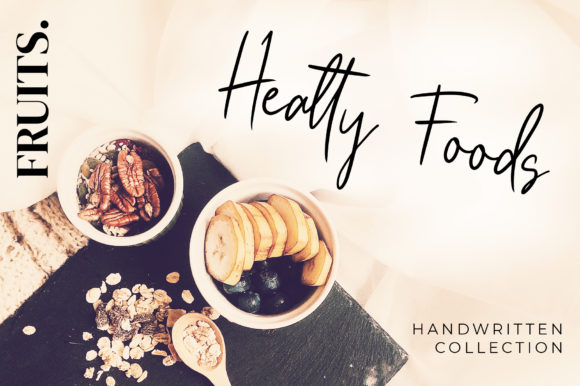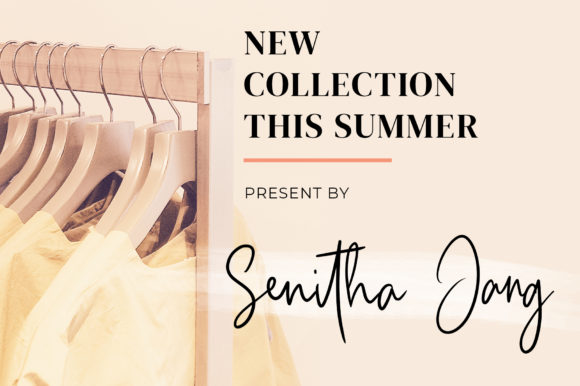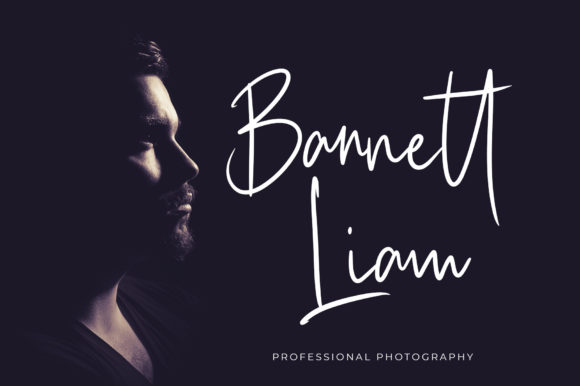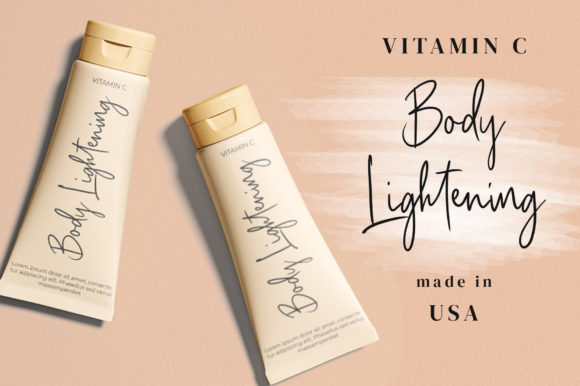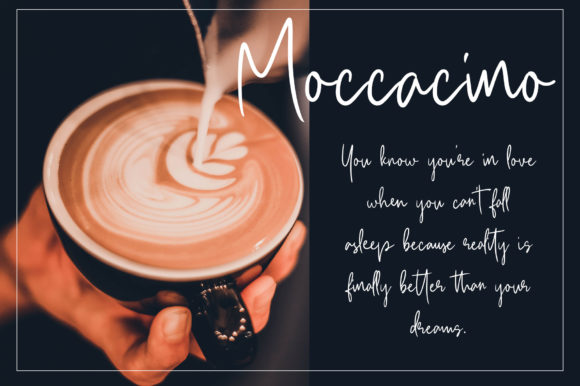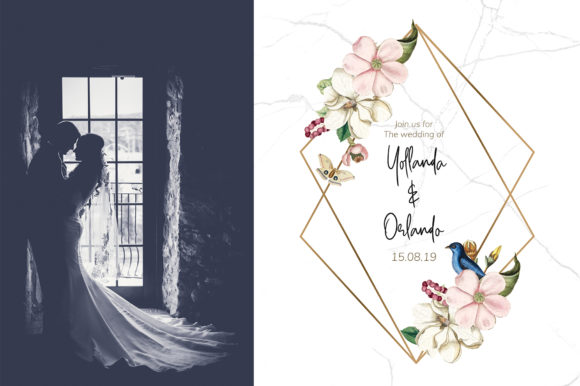
Introduction to Registand Font
Have you ever been brainstorming ideas for your next creative project and suddenly stumbled upon a font that perfectly captures the essence of your vision? For many designers, that moment is a game-changer. It’s the spark that ignites the entire design process, propelling you forward with excitement and creativity.
That’s exactly what happens when you discover the Registand Font – a high-quality, versatile font that adds an air of adventure and authenticity to any design. With its unique blend of rustic and modern elements, Registand Font is the perfect design resource for anyone looking to create something truly special. Whether you’re working on a personal project or collaborating with clients, this font is sure to elevate your designs to the next level.
Key Features of Registand Font
- High-quality design resource ideal for creative projects, offering a unique and elegant aesthetic.
- Transparent background, making it easy to use with various design elements and backgrounds.
- Designed with a focus on legibility and readability, making it suitable for body text and headings.
Honest Review: Registand Font
As a designer, I’m always on the lookout for high-quality design resources that can elevate my creative projects. The Registand Font is one such resource that caught my attention.
What works well: ✨ I was impressed with the font’s clean and minimalist design, which makes it perfect for a variety of applications, from branding to editorial content. The transparent background also gives designers the flexibility to use it with any color scheme.
However, I did find a few limitations: ⚠️ The font’s versatility is somewhat limited by its monolinear design, which may not be suitable for projects that require bold or condensed text.
Overall, I think the Registand Font is a solid addition to any designer’s toolkit. While it may not be perfect for every project, its high-quality design and flexible use make it a valuable resource for designers looking to add some sophistication to their work.
Tips for Getting the Most Out of Registand Font
For optimal use, it’s recommended to pair Registand Font with other high-quality design resources to create a cohesive and professional look. Experiment with different font sizes and styles to find the perfect balance for your design.
Registand Font is commonly used in creative projects such as logos, business cards, and social media graphics. Its high-quality design and transparent background make it an ideal choice for designers and non-designers alike.